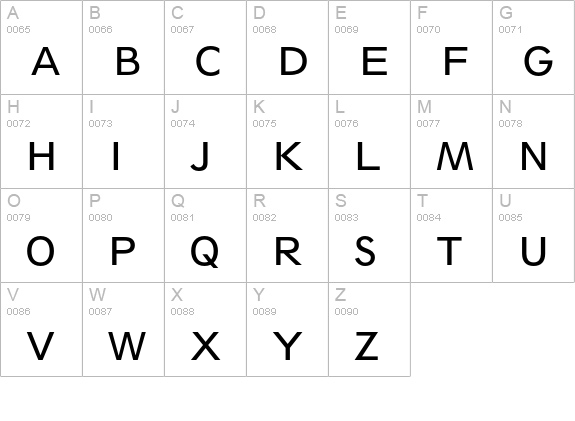
Spartan Book Classified is a comfortable, highly readable variant in the Spartan typeface family \xE2\x80\x94 well suited to long-form body text, articles, and editorial content.
Introducing Spartan Book Classified, a bold and powerful font that exudes strength and elegance. Designed with meticulous attention to detail, this font is perfect for adding a touch of sophistication to any project. Whether you're creating eye-catching headlines, stylish logos, or professional-looking documents, Spartan Book Classified is sure to make a lasting impression. With its clean lines and strong geometric shapes, this font is reminiscent of ancient Spartan warriors, embodying their unwavering determination and unwavering spirit. Its versatility allows it to adapt seamlessly to a wide range of design styles, from modern and minimalist to classic and timeless. But what truly sets Spartan Book Classified apart is that it is not only visually striking, but also free. Yes, you read that right - this exceptional font is freely available to download at FontsMarket.com. Now, you can enjoy the benefits of a high-quality, premium font without breaking the bank. So, whether you're a professional designer looking to enhance your portfolio, a student embarking on a creative project, or anyone in between, Spartan Book Classified is the perfect choice. Its bold presence and elegant simplicity will elevate your designs and captivate your audience. Download Spartan Book Classified today at FontsMarket.com and unleash the power of this remarkable font. Don't miss out on the opportunity to add a touch of Spartan strength to your creations - get it now and let your designs stand out from the crowd.